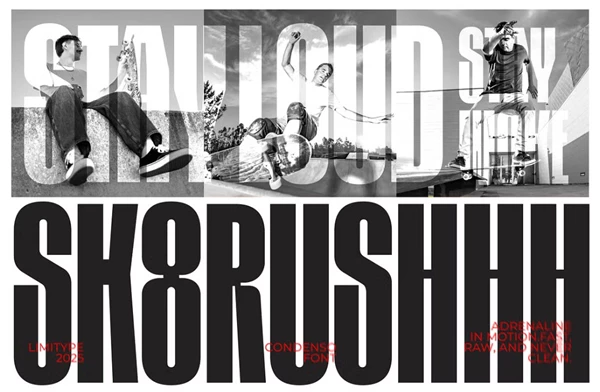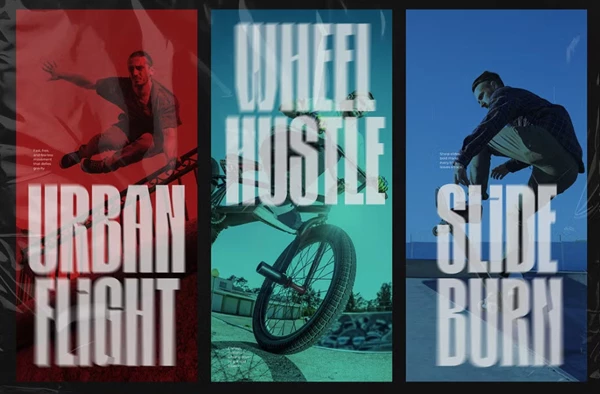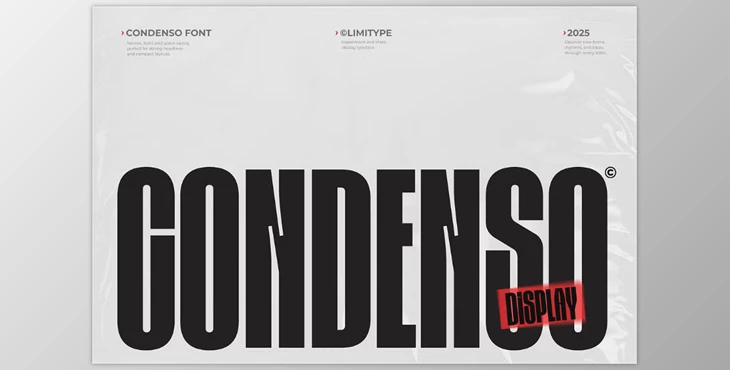
Condenso Condensed Font:
Condenso is a narrow version of a modern display typeface and a condensed attention-grabber. With inktraps for an added distinct quality atop its condensed appeal, Condenso is great for urban displays, headlines, merchandising, branding, and anything with a need for a modern, contemporary vibe.